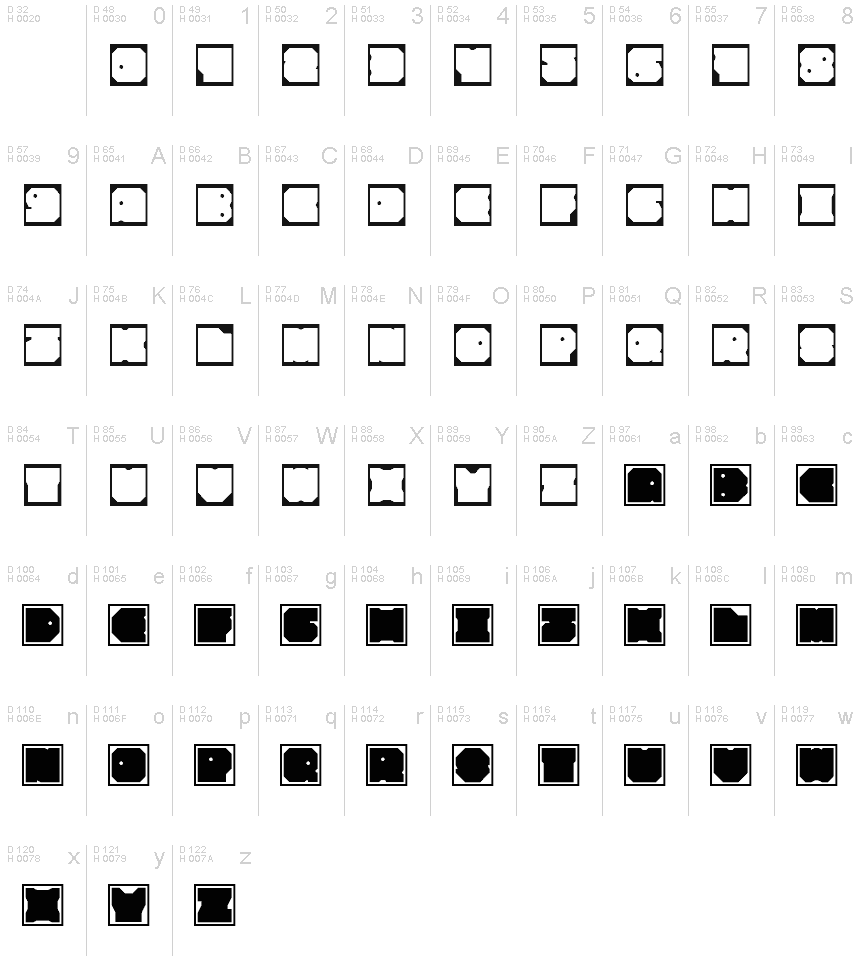
Anti-Biased Regular
In boxed glyphs, alternate between upper caps and small caps has a fun effect!
Designer description: In boxed glyphs, to alternate between upper caps and small caps has a fun effect